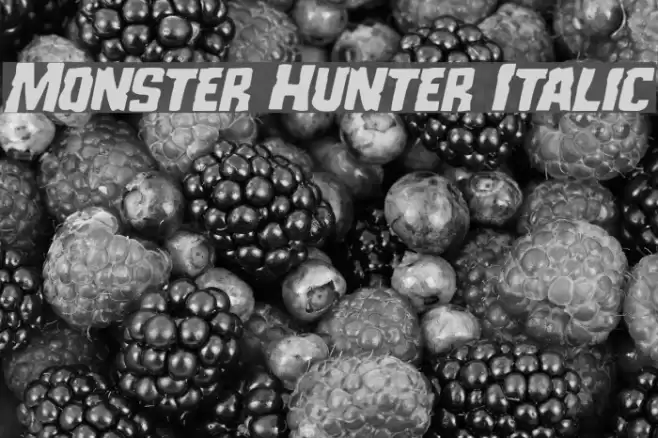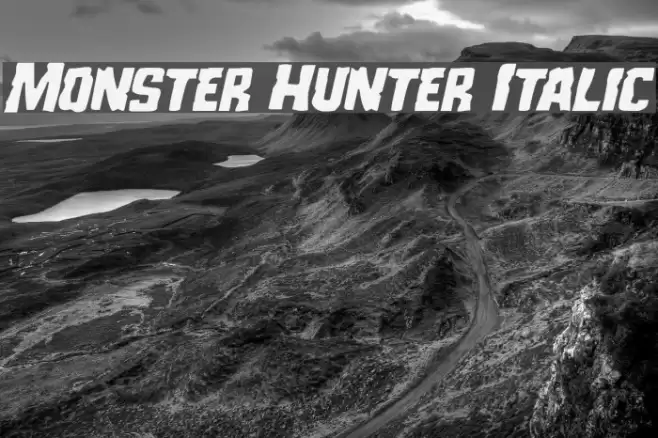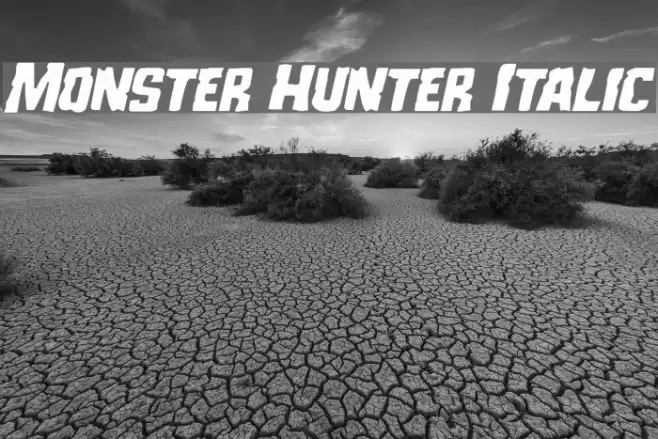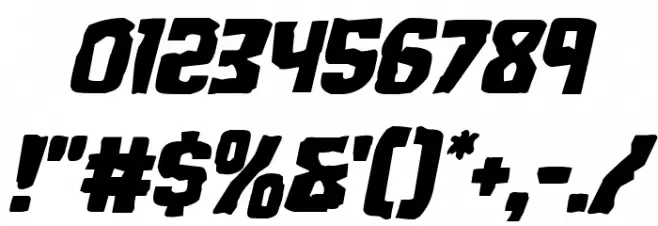
Monster Hunter Italic Font
Monster Hunter Italic Description
This font features a bold and dynamic design, characterized by its strong, angular strokes and italicized slant. The letters are robust and convey a sense of power and movement, making it ideal for impactful headlines and titles. The uppercase and lowercase characters maintain a consistent style, with sharp edges and a slightly condensed form. The numbers and special characters follow the same bold aesthetic, ensuring uniformity across all text elements. The font's aggressive style is perfect for projects that require a sense of urgency or intensity.
A bold, italicized font with angular strokes and a dynamic, powerful style from Uncategorized fonts.
- Proposed Projects: Ideal for video game titles, action movie posters, sports branding, and dynamic advertising campaigns.